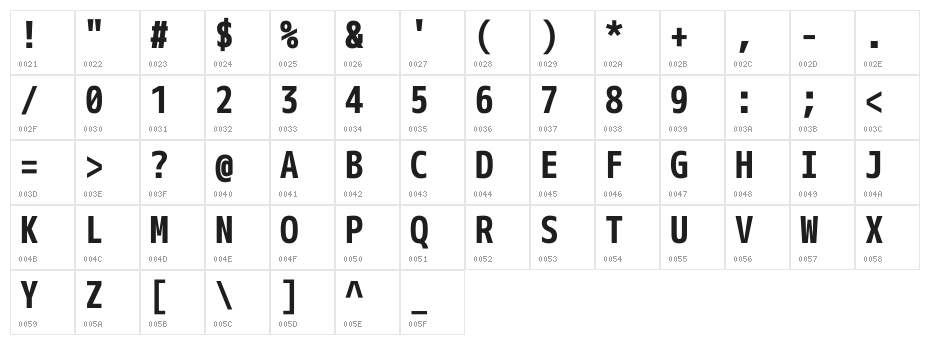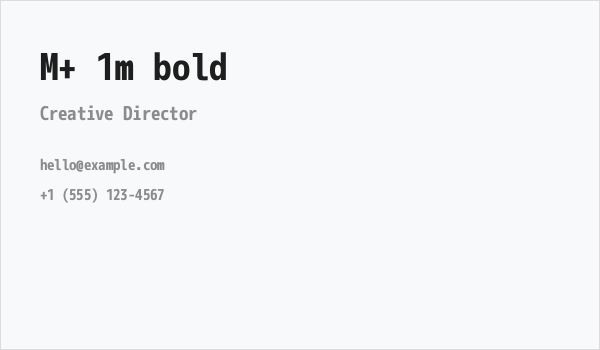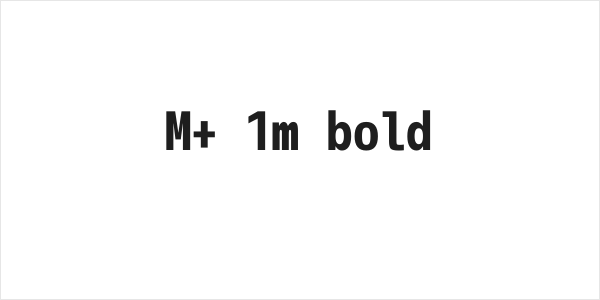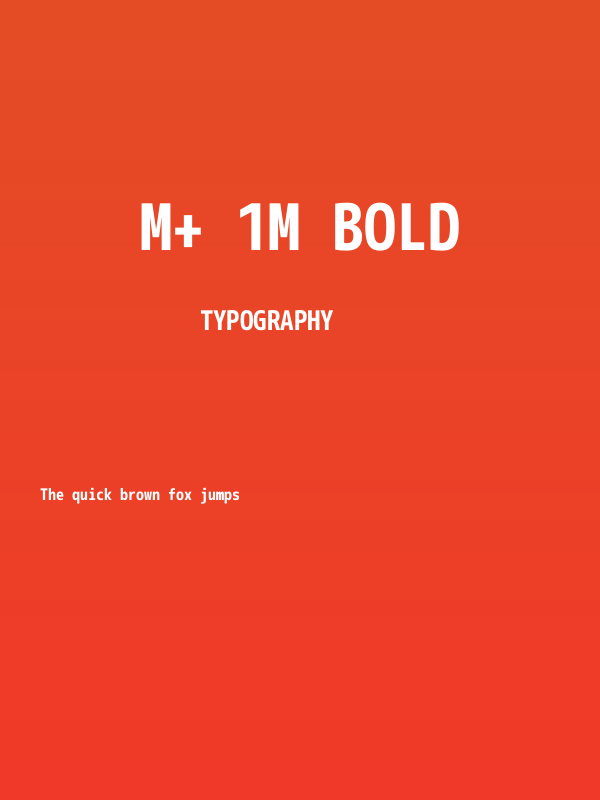
M+ 1m bold Font
This font features a bold and assertive style, characterized by thick strokes and a strong presence. The uppercase letters are uniform in height, with a slightly condensed appearance that enhances its boldness. The lowercase letters maintain a consistent style, with rounded edges that add a touch of softness to the overall robust design. The numerals are clear and legible, matching the boldness of the alphabetic characters. Special characters are well-defined, ensuring clarity in various contexts. This font is ideal for making a strong visual impact, suitable for headlines and attention-grabbing text.
Proposed ProjectsIdeal for headlines, posters, branding materials, and any project requiring a bold statement.